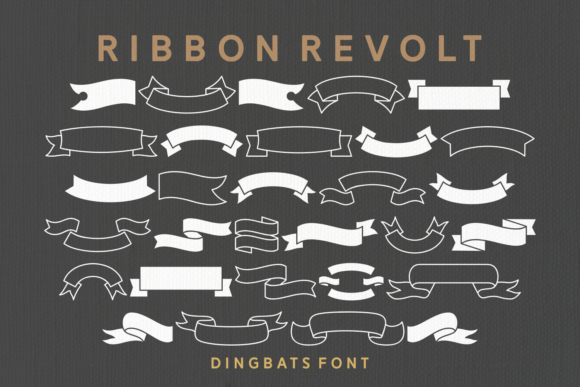
Introducing Ribbon Revolt Font, the ultimate choice for all your design needs! Crafted by the talented Keithzo from 7NTypes, this extraordinary dingbats font is here to revolutionize your creative projects. With its captivating vintage feel and unique banners, Ribbon Revolt is truly a game-changer in the typography world.
Are you searching for the Best Fonts For Print 2014? Look no further! Ribbon Revolt Font combines timeless elegance with a modern twist, making it the perfect companion for any print project. Whether you're designing eye-catching posters, attention-grabbing flyers, or even stylish invitations, this font will add a touch of sophistication that is sure to captivate your audience.
But it doesn't stop there! Ribbon Revolt Font is not just a font, it's a source of inspiration. Unlock your creativity and let this font ignite your imagination. Its intricate banners offer endless possibilities for unique and visually stunning designs. Stand out from the crowd and make a statement with this one-of-a-kind dingbats font.
Embrace the emotional power of Ribbon Revolt Font and let it transport you to a world of nostalgia and charm. Its vintage feel evokes a sense of authenticity and craftsmanship that is sure to resonate with your target audience. From retro-themed projects to elegant branding, this font will effortlessly elevate your designs and leave a lasting impression.